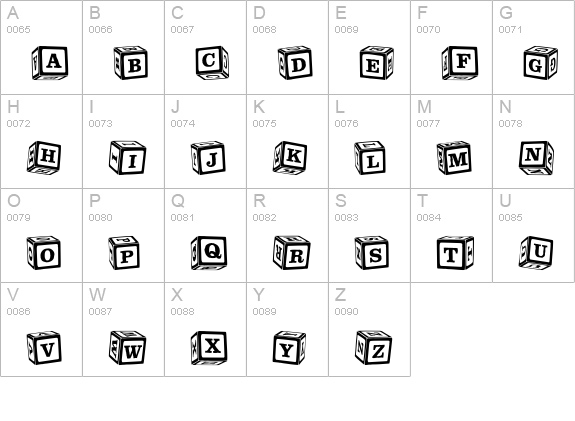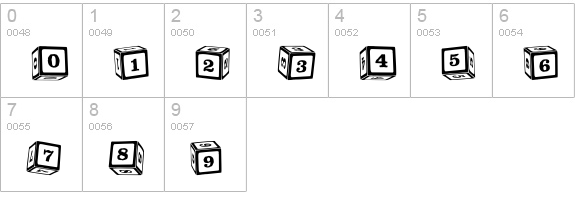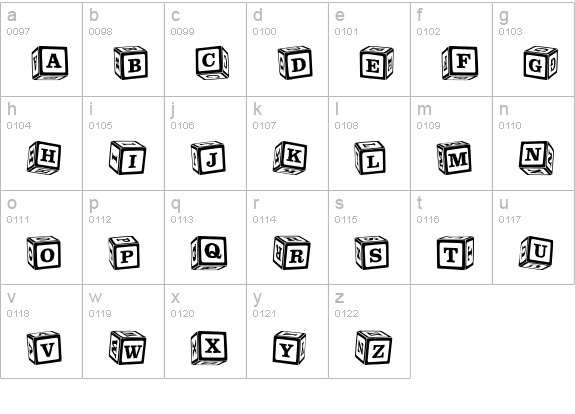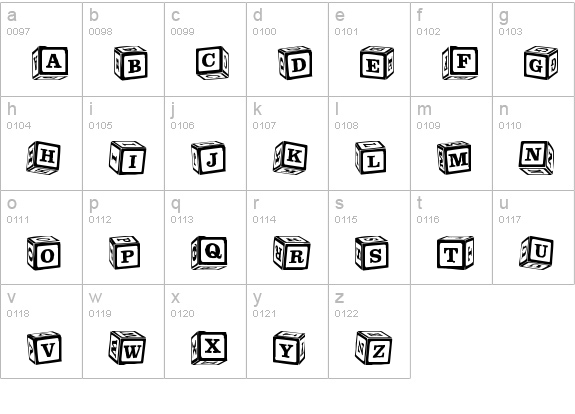
Childs Play Blocks font is a delightful and whimsical typeface that brings a playful touch to any design project. With its chunky and colorful letterforms, this font is perfect for creating eye-catching headlines, posters, and children's book covers. The charming and fun style of Childs Play Blocks font will surely capture the imagination of your audience. The best part is, Childs Play Blocks font is available for free download at FontsMarket.com. Whether you're a designer looking to add a touch of playfulness to your work or a parent creating personalized invitations for a child's birthday party, this font is a fantastic choice. Download Childs Play Blocks font today and let your creativity run wild!